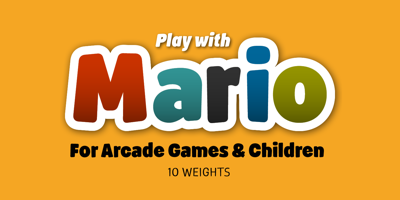
Raski Font is a bold, modern, and highly versatile sans-serif typeface, perfect for designs that demand strong visual impact, clear readability, and a contemporary edge. Imagine it commanding attention as the headline font for a sleek tech startup's website, adding a dynamic presence to sports apparel branding, or giving a crisp, minimalist identity to urban lifestyle magazines. It’s an exceptional choice for designing impactful posters, creating clean and modern logos, crafting effective advertising campaigns, and enhancing any digital or print media where clarity, efficiency, and a forward-thinking aesthetic are paramount. Its well-defined structure and balanced proportions ensure high legibility across a multitude of sizes, making it suitable for both prominent display text and concise informational blocks.
What makes Raski Font truly exciting is its remarkable ability to blend geometric precision with a subtle humanist touch, giving it a unique character that is both approachable and authoritative. It possesses a clean, uncluttered aesthetic that exudes confidence and efficiency, making it incredibly effective for conveying professionalism and trustworthiness. Designers are often drawn to Raski Font because it offers a timeless appeal without being old-fashioned, adapting effortlessly to current design trends while maintaining strong foundational qualities. It’s a font that prioritizes clear and direct communication, ensuring your message is delivered without distraction and with a polished, professional finish. The careful calibration of its letterforms contributes to its excellent readability and universal applicability, making it an indispensable tool for designers seeking dependable performance.
The Raski Font family is typically designed to be exceptionally comprehensive, offering an extensive range of weights and styles, providing maximum versatility for diverse design applications. While specific family members might vary, you can generally expect a wide spectrum including ultra-light, light, regular, medium, semi-bold, bold, extra-bold, and even black weights. Many Raski Font families also include corresponding italic versions, and sometimes even condensed or extended variations to further enhance flexibility for different layout needs. These extensive options ensure that Raski Font can be effectively utilized across all design hierarchies, maintaining its distinctive clarity and professional appearance whether used for striking headlines or dense informational text.